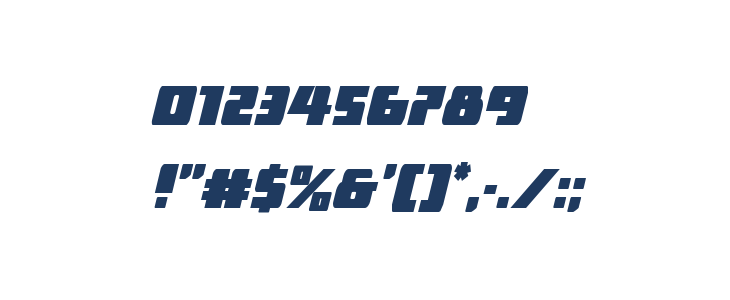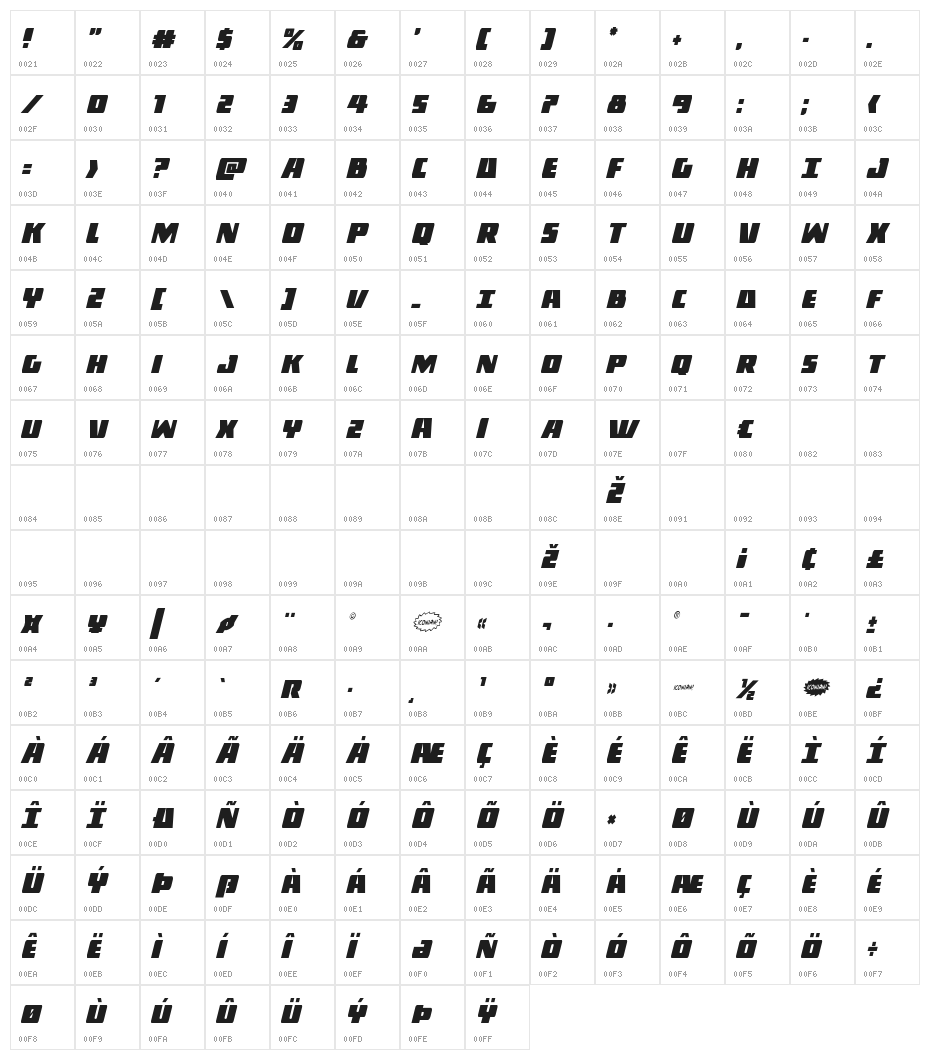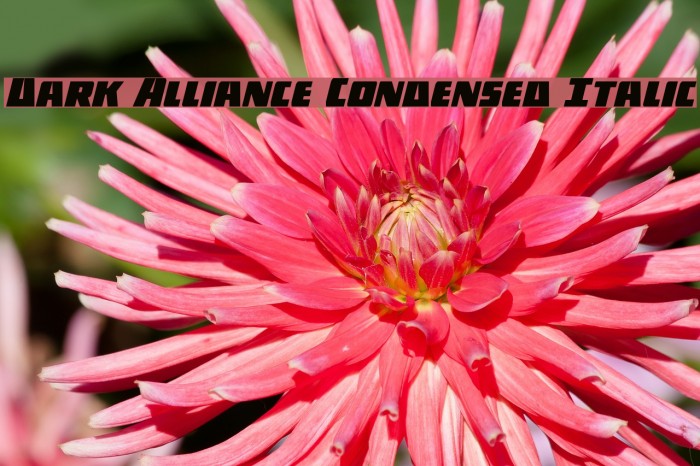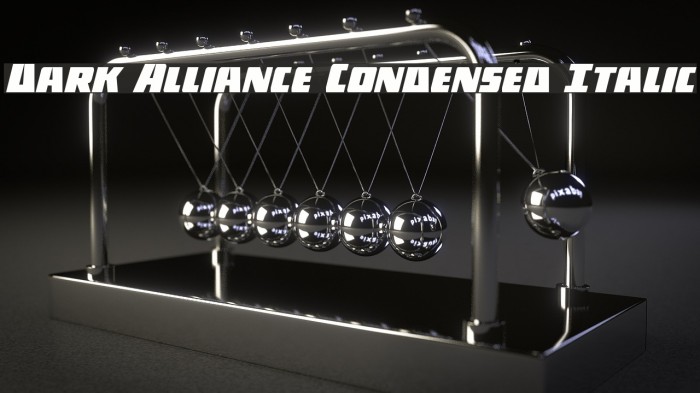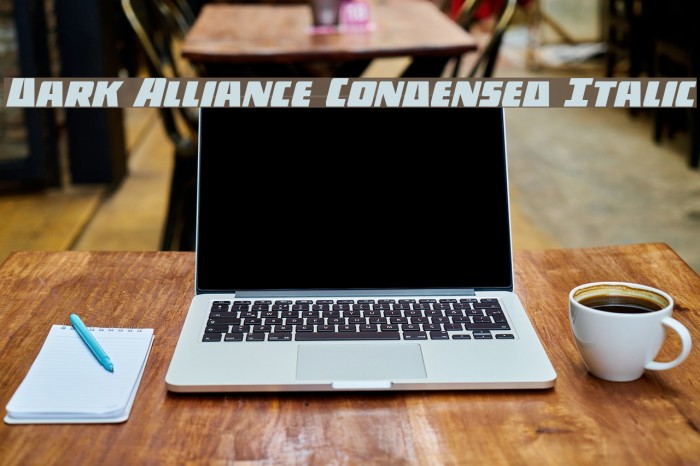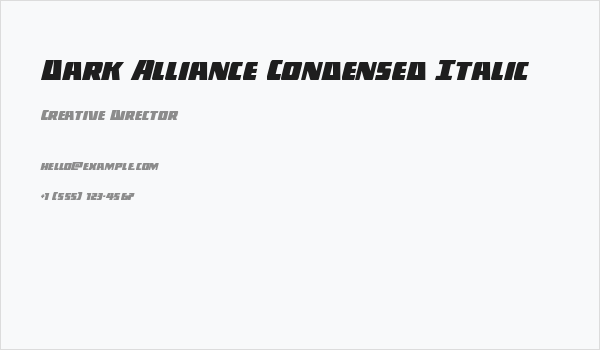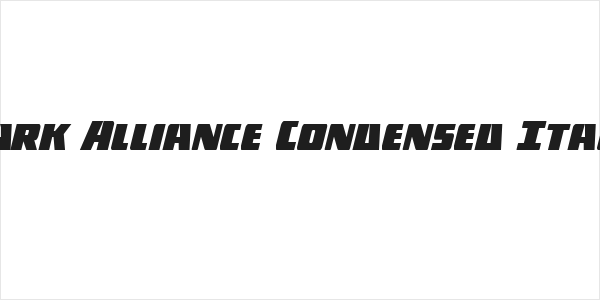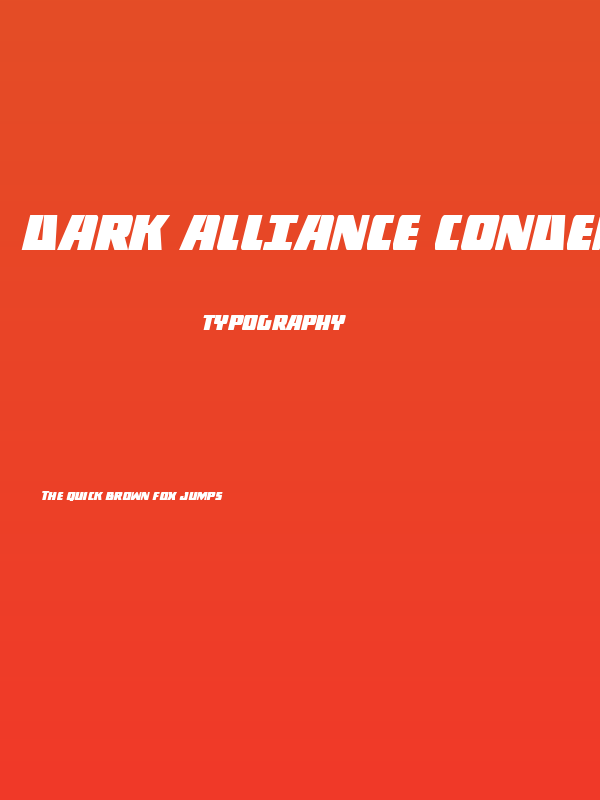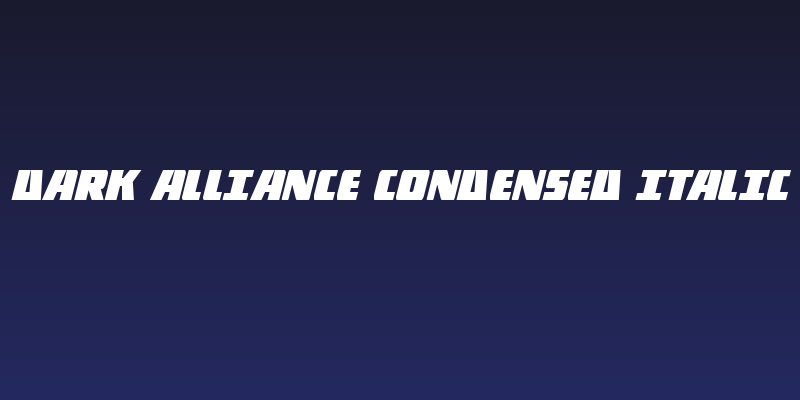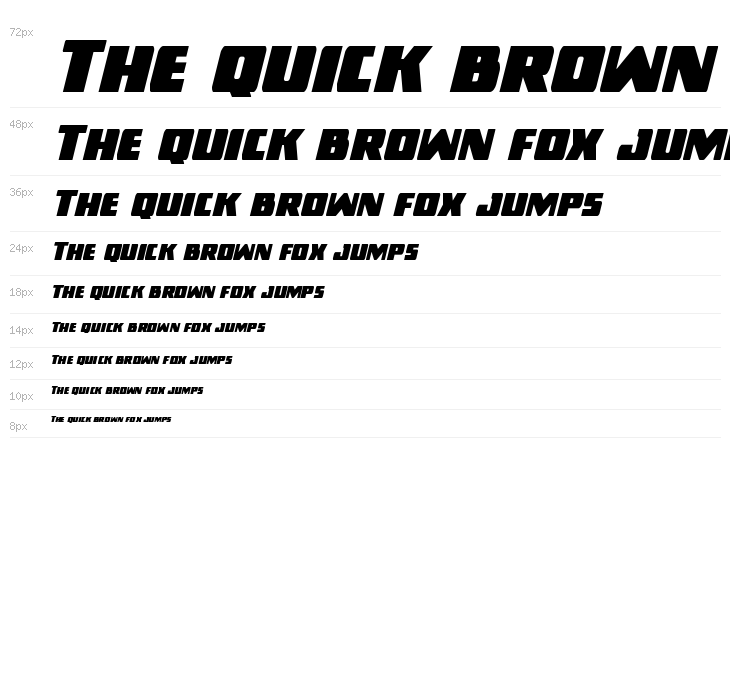
Dark Alliance Condensed Italic Font
Dark Alliance Condensed Italic Description
This font exhibits a bold and dynamic style with a strong geometric influence. The characters are sharply angled, giving them a futuristic and aggressive appearance. The condensed nature of the font allows for efficient use of space, making it ideal for impactful headlines. The italic slant adds a sense of motion and urgency, enhancing its suitability for modern and edgy designs. The uppercase and lowercase letters maintain a consistent style, with the numbers and special characters seamlessly integrated into the overall design. The font's bold weight and condensed width make it stand out, while the tight character spacing ensures a cohesive look.